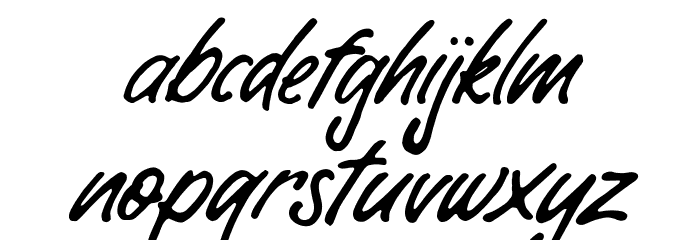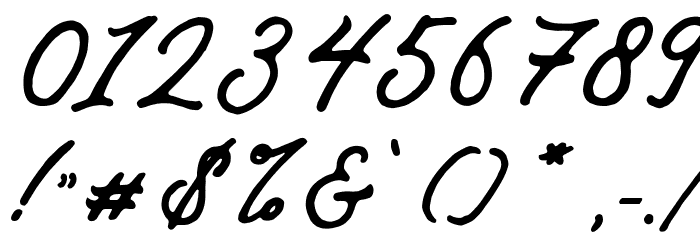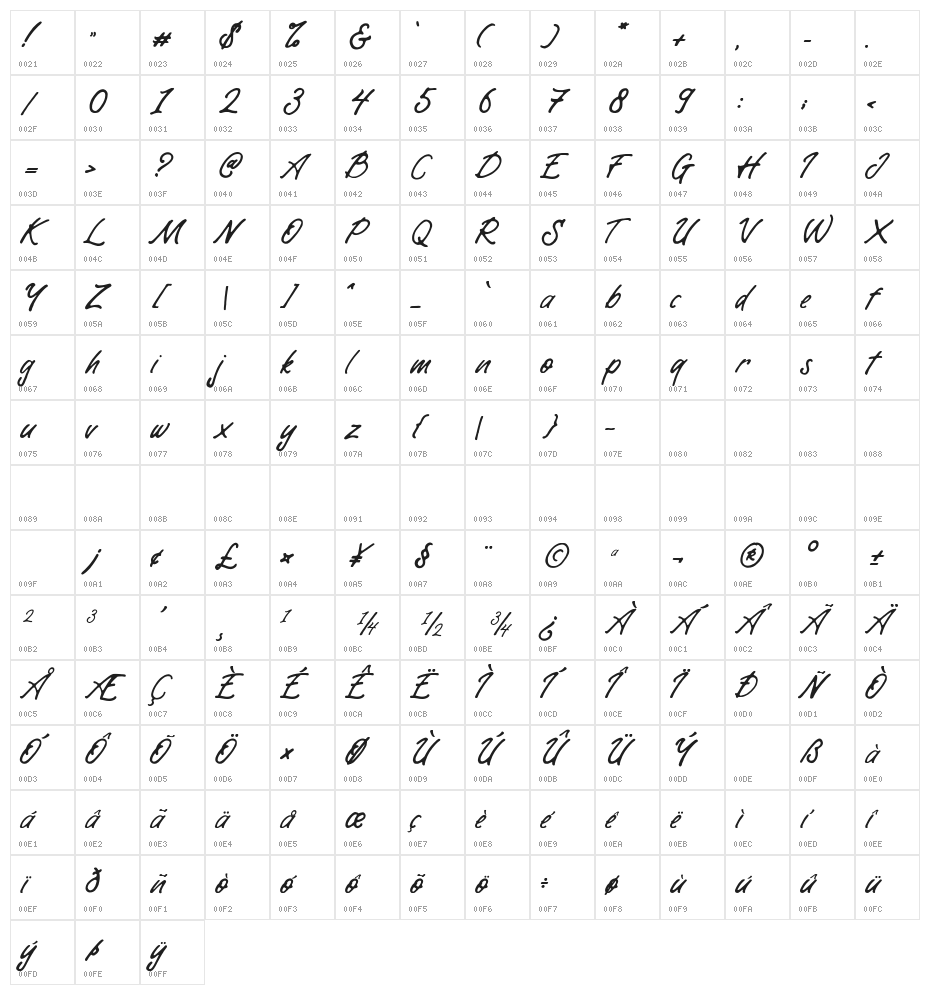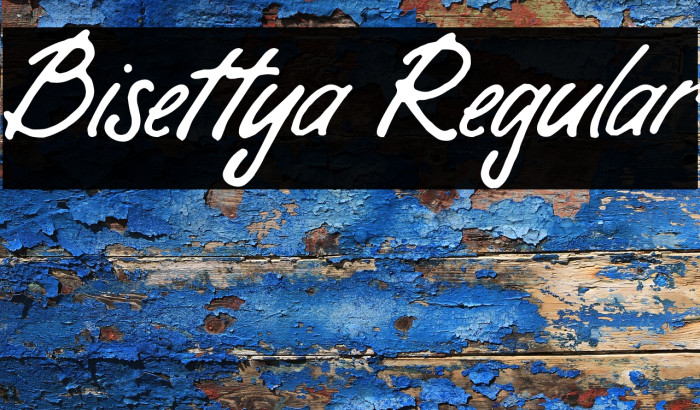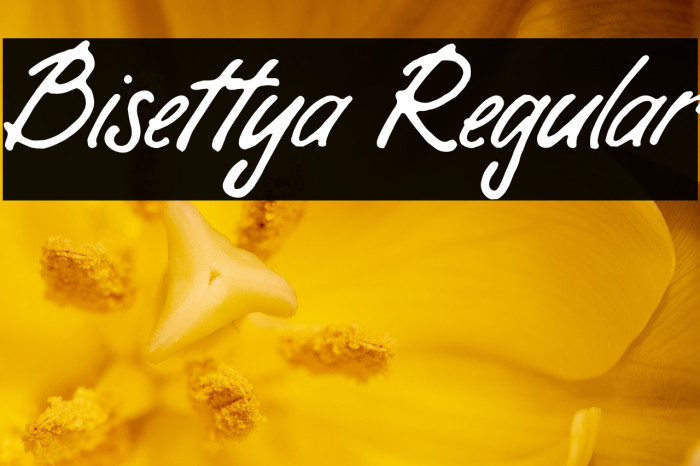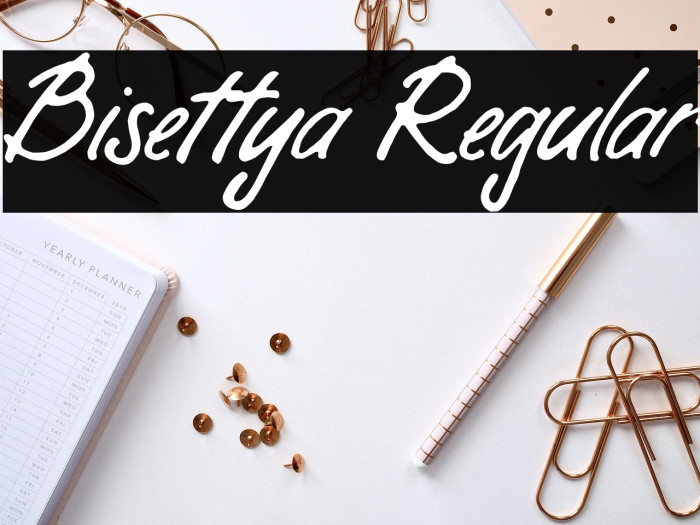
Bisettya Regular Font
This font features a dynamic and fluid script style, characterized by its elegant, flowing curves and connected letters. The uppercase letters are bold and expressive, while the lowercase letters maintain a consistent rhythm, enhancing readability. The numerals are distinct and well-proportioned, complementing the overall aesthetic. Special characters are designed with the same attention to detail, ensuring a cohesive look across all glyphs. This font exudes a sense of sophistication and creativity, making it suitable for a variety of design applications.
A dynamic and fluid script font with elegant, flowing curves.
- Font: Bisettya Regular
- Proposed Projects: Ideal for wedding invitations, branding projects, and elegant packaging designs.
- Category: Script
- Use Case: Logos, Invitations, Branding